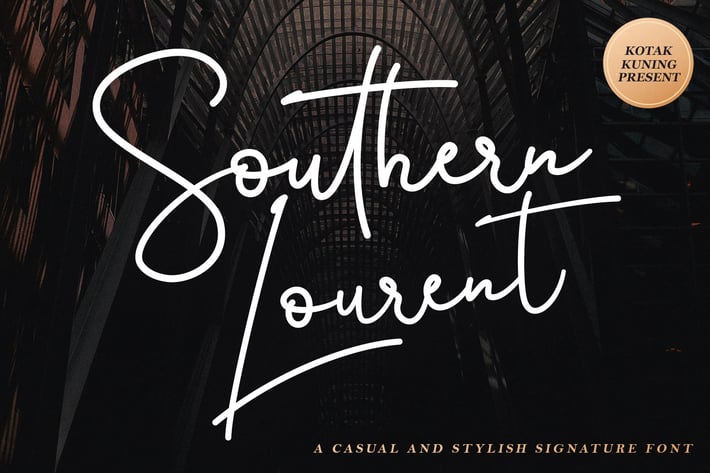
Southern Lourent Signature Font
Southern Lourent is a handwritten signature script with a natural & stylish flow. This font has a multitude of natural-looking ligatures in its OpenType features - making the font look as close to natural handwriting as possible. This collection of script is perfect for personal branding.
Southern Lourent Font is perfect for many different projects such as logos & branding, invitation, stationery, wedding designs, social media posts, advertisements, product packaging, product designs, label, photography, watermark, special events, or anything.